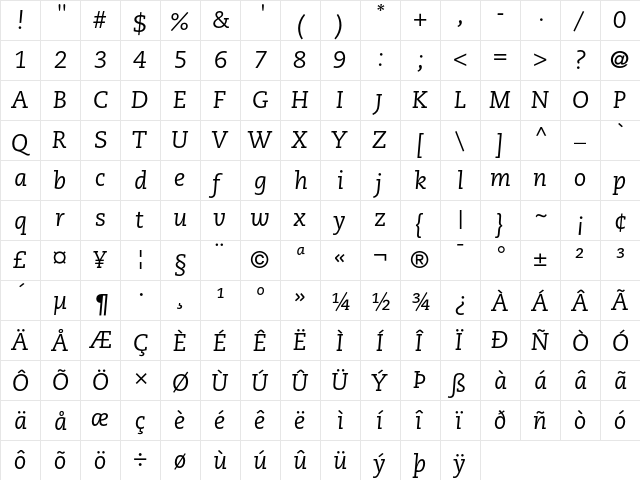
PMN Caecilia 56 Italic
Design Context for PMN Caecilia Typeface
PMN Caecilia is a composed and adaptable typeface that performs quietly and consistently across a wide range of design contexts. The dynamic lean of this cut emphasises speed and emphasis in any layout.
Pro Tip: Try PMN Caecilia for annotation and caption copy alongside an upright companion — the contrast in angle creates a dynamic but ordered typographic system.